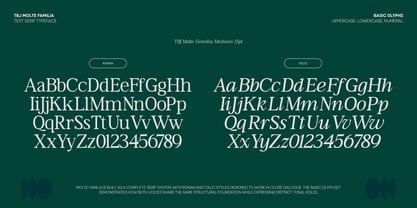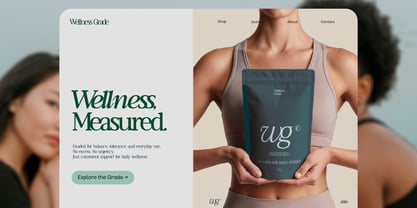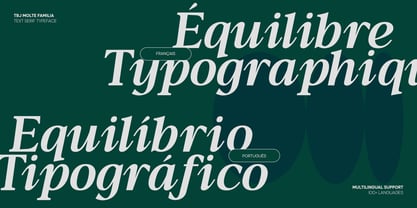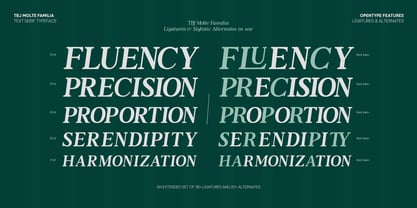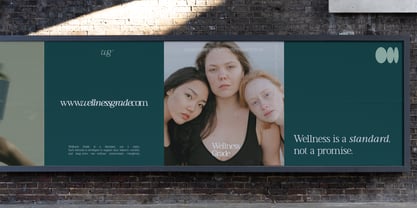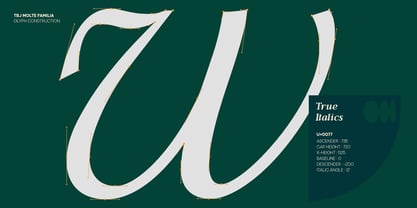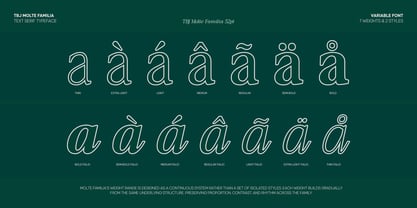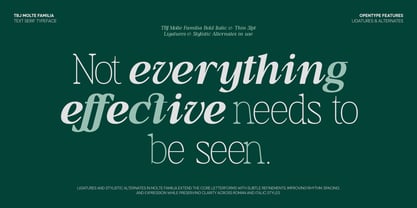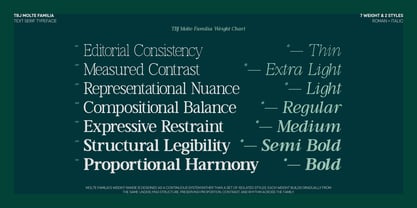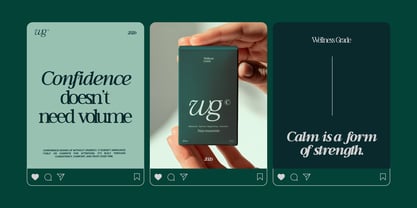
TBJ Moltefamilia
by Taboja Studio
The TBJ Moltefamilia Font Family was designed by Yusilo Oktaprima Ardani and published by Taboja Studio. TBJ Moltefamilia contains 14 styles and family package options. More about this family
TBJ Moltefamilia is a refined serif typeface that blends timeless elegance with contemporary finesse. Crafted with carefully sculpted serifs, balanced proportions, and a touch of character, this font communicates with sophistication and clarity across a wide range of creative applications. With its graceful curves and considered contrast, TBJ Moltefamilia becomes a versatile choice for editorial layouts, branding, book covers, logos, and luxury packaging. Offered in both Display and Text styles, each designed with distinct optical adjustments, it ensures optimal beauty and readability whether used in grand headlines or extended reading experiences. The addition of italic styles enriches the type family further, bringing fluidity, emphasis, and expressive dynamism to your typographic composition. This typeface harmonizes the classic roots of serif typography with a modern design sensibility, making it equally compelling in both print and digital environments. Created for designers who value detail, personality, and visual storytelling, TBJ Moltefamilia is more than a font, it's a typographic universe. At Taboja Studio, we believe exceptional type begins with intention. TBJ Moltefamilia is built to elevate your message with poise, versatility, and unmistakable presence.
Designers: Yusilo Oktaprima Ardani
Foundry: Taboja Studio